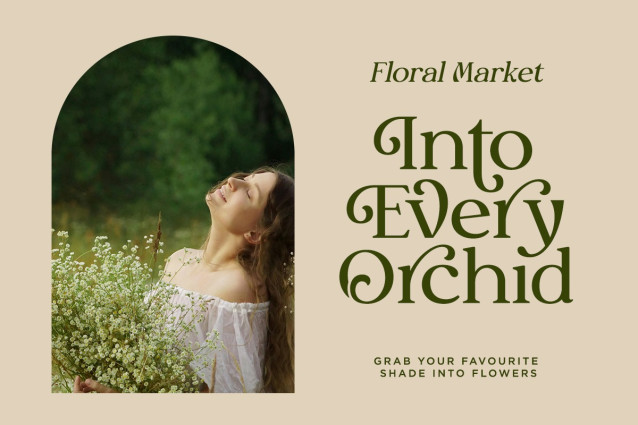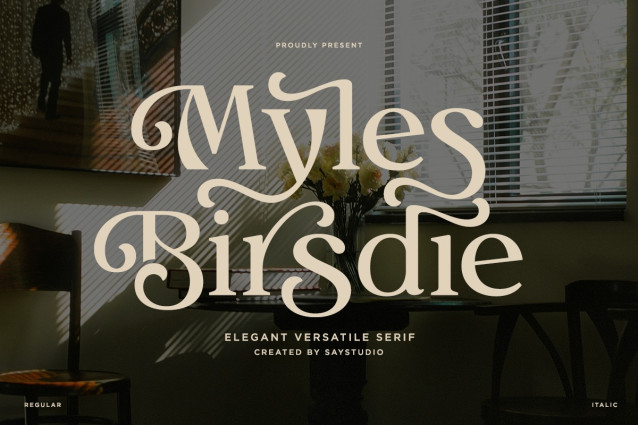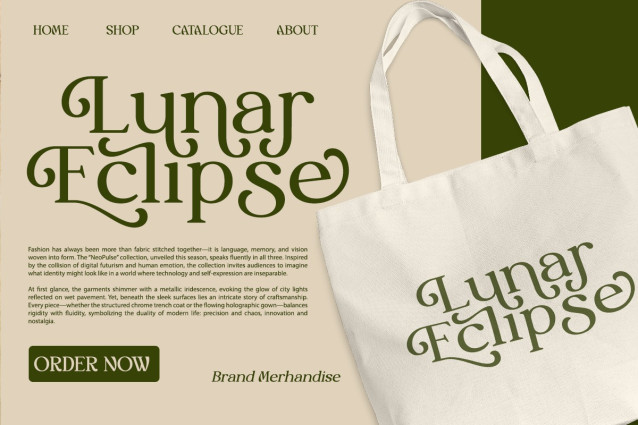
Myles Birdsie – Elegant Versatile Serif Font
Myles Birdsie is an elegant versatile serif font that blends timeless sophistication with artistic personality. Featuring graceful curves, stylish alternates, and refined decorative details, this typeface creates a warm and luxurious aesthetic that feels both vintage-inspired and contemporary. Designed to deliver elegance with excellent readability, Myles Birdsie is perfect for designers who want typography that makes a lasting impression.